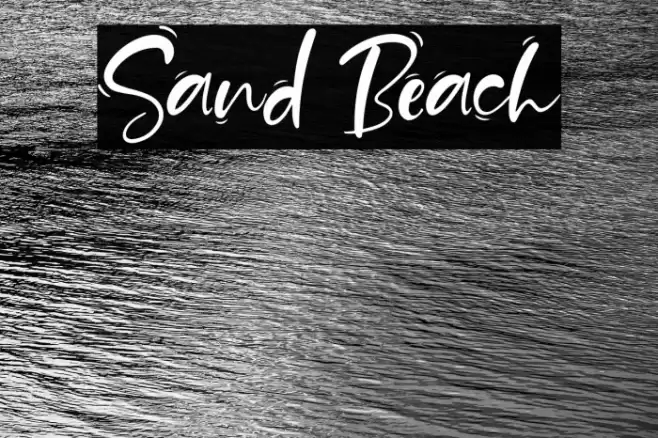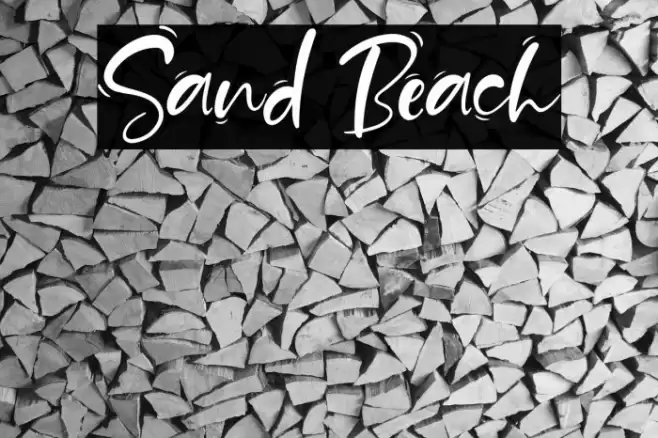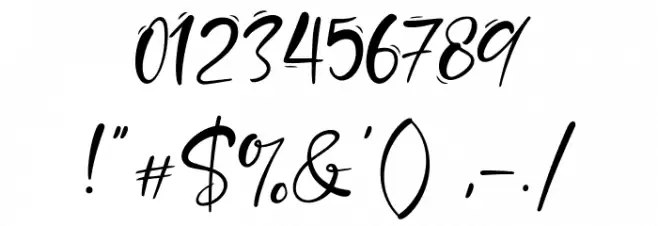
Sand Beach Font
This font exudes a lively and dynamic energy, characterized by its flowing, cursive style that mimics the fluidity of handwriting. The strokes are bold and expressive, with a playful bounce that adds a sense of movement to the text. Each letter is uniquely crafted, featuring a mix of thick and thin lines that create a striking contrast. The uppercase letters are tall and elegant, while the lowercase letters maintain a consistent rhythm, enhancing readability. The numbers and special characters are equally stylized, maintaining the overall aesthetic. This font is perfect for projects that require a personal touch, such as invitations, greeting cards, or branding materials that aim to convey creativity and warmth.
A lively, cursive font with bold, expressive strokes and playful movement from Uncategorized fonts.
- Proposed Projects: Ideal for invitations, greeting cards, branding, and creative projects.
- Use Case: Logos, Headlines, Invitations